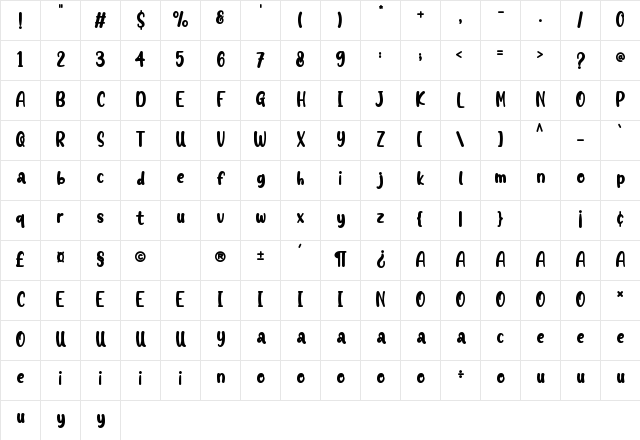
Complete Berthany Regular glyph index. Displaying only characters natively supported by Berthany Regular font.
Berthany is a composed and adaptable typeface that performs quietly and consistently across a wide range of design contexts.